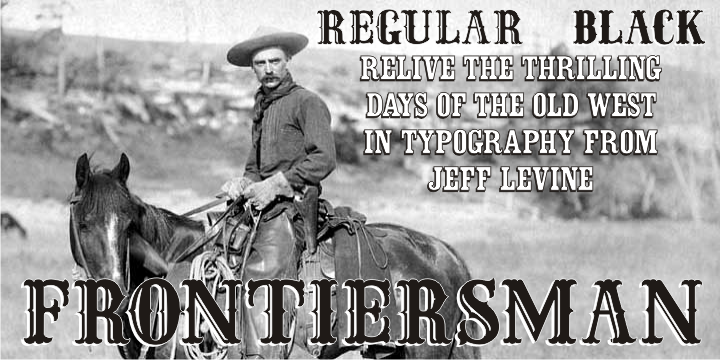
Frontiersman JNL Font is a robust and authentic typeface, perfect for designs that aim to convey a sense of adventure, Americana, or a rugged, vintage frontier spirit. Its sturdy, often hand-drawn or wood-block inspired forms make it an excellent choice for Western-themed branding, outdoor adventure gear labels, craft brewery packaging, and historical reenactment posters. Imagine it gracing the signage of an old-fashioned saloon, adding a rustic charm to campsite information boards, or providing a genuine feel to national park interpretive displays. This font is also superb for music album covers (especially folk, country, or blues), documentary titles about pioneers or explorers, and any project where an unyielding, traditional, and visually impactful identity is key. It doesn't just display text; it tells a tale of bygone eras and daring journeys.
What makes Frontiersman JNL Font so exciting is its immediate ability to evoke a powerful sense of history and honest craftsmanship. It perfectly captures the essence of early American typography, reminiscent of hand-painted signs, wanted posters, or old-time advertisements. This distinctive character makes it a fantastic choice for designers looking to infuse their projects with a sense of authenticity, heritage, and an unforgettable visual impression. It’s a font that speaks with a strong, grounded voice, making it ideal for brands and content creators who want to convey resilience, tradition, and a compelling, evocative aesthetic. Its rugged appeal can make any message feel more significant and deeply rooted.
The Frontiersman JNL Font family, given its often artistic and specialized nature, might not feature the extensive range of weights found in more traditional typefaces. However, being part of the JNL (Jeff Levine Fonts) collection, it often comes with specific variations or complementary elements that enhance its unique aesthetic and provide creative flexibility. You might find variations such as:
• Frontiersman JNL Regular (the primary distinctive style)
• Frontiersman JNL Bold (for added emphasis while maintaining the character)
• Frontiersman JNL Distressed (if designed with a weathered or aged appearance)
• Frontiersman JNL Outline (for a different visual effect)
• Frontiersman JNL Shadow (for a dimensional look)
These variations empower designers to maintain a consistent thematic aesthetic while adding depth and visual punch to their compositions. The availability of Frontiersman JNL Font Free Download offers an excellent opportunity to explore its unique blend of historical charm and adventurous spirit for your personal design ventures.